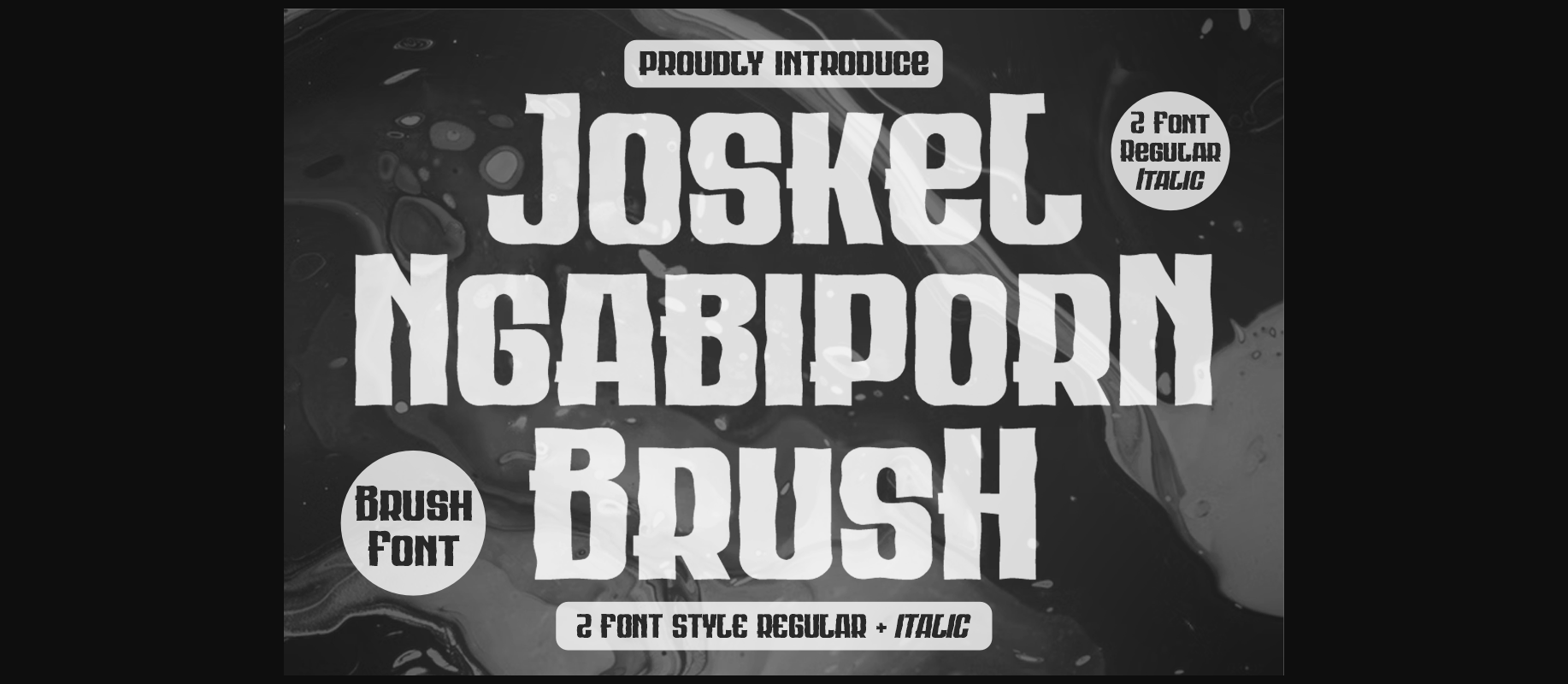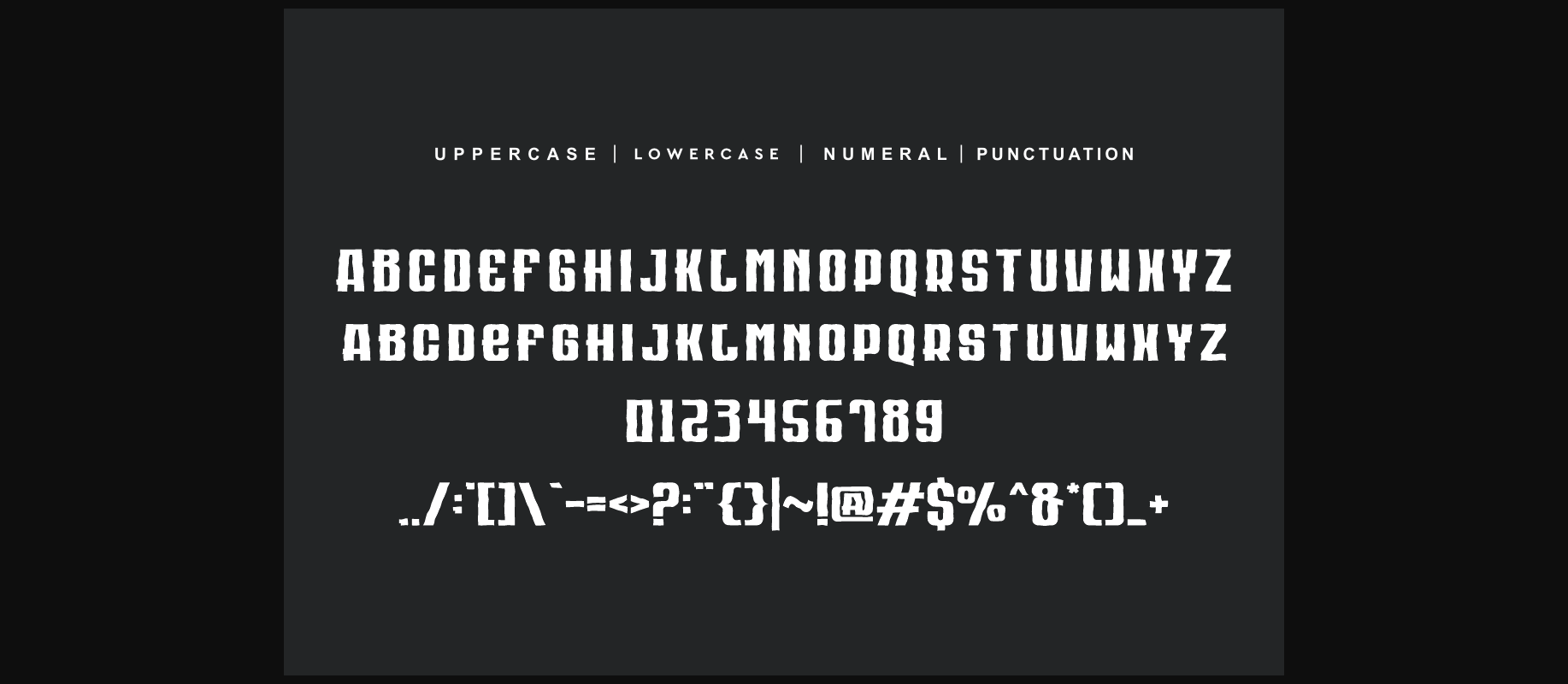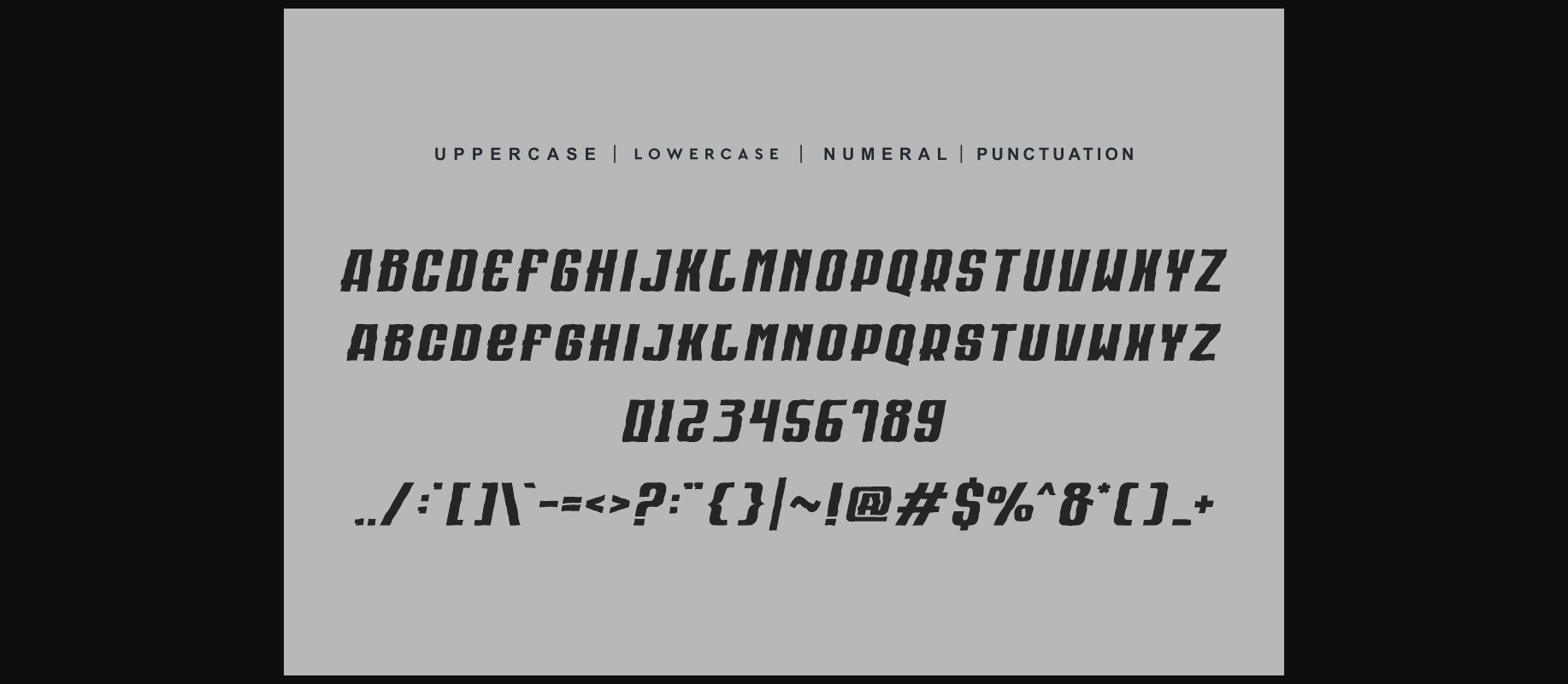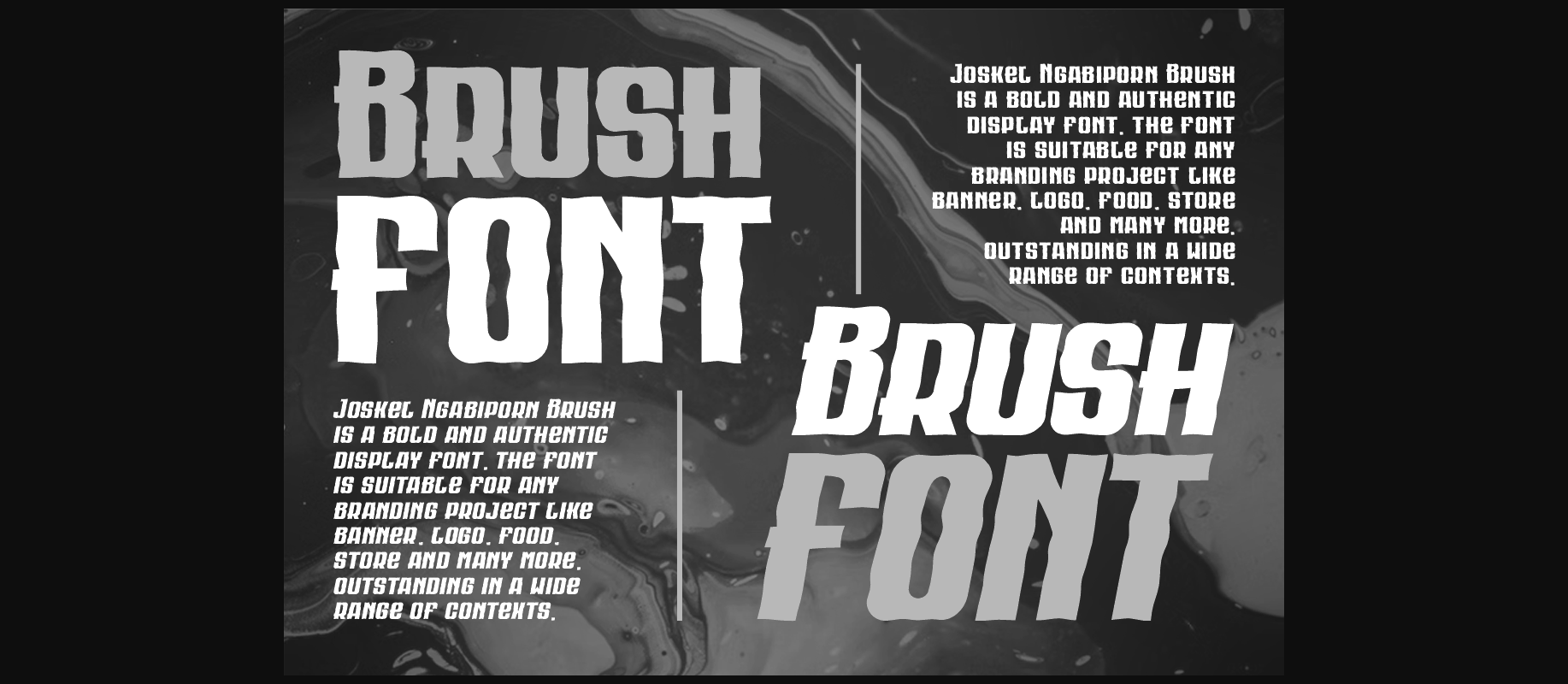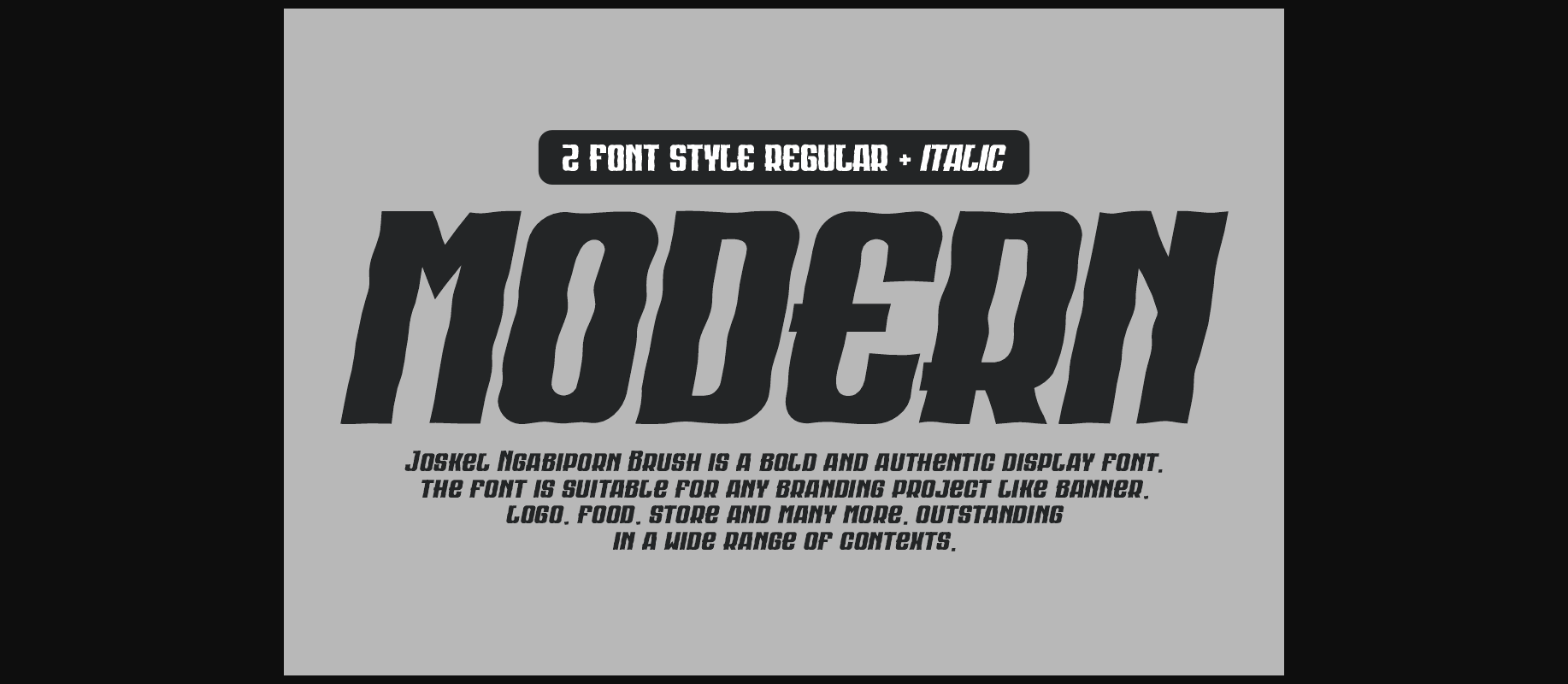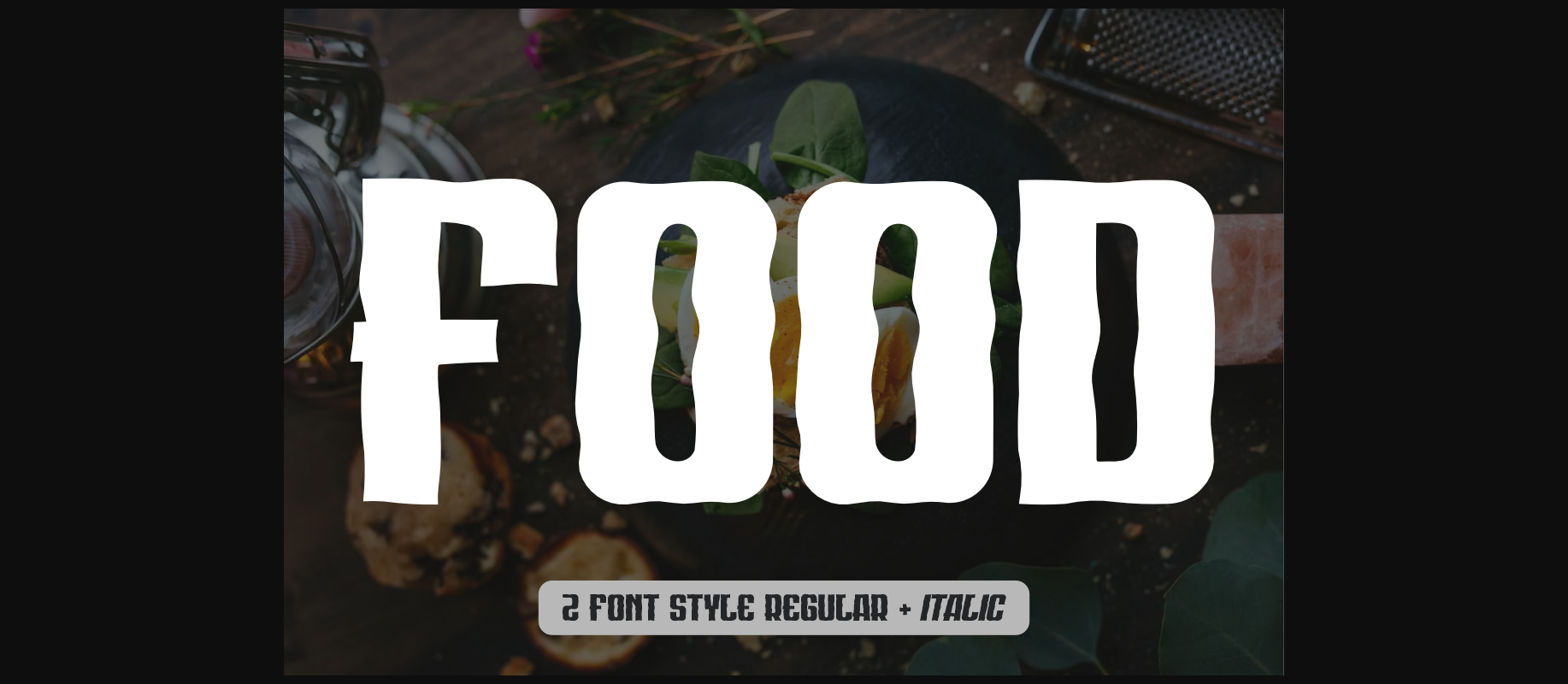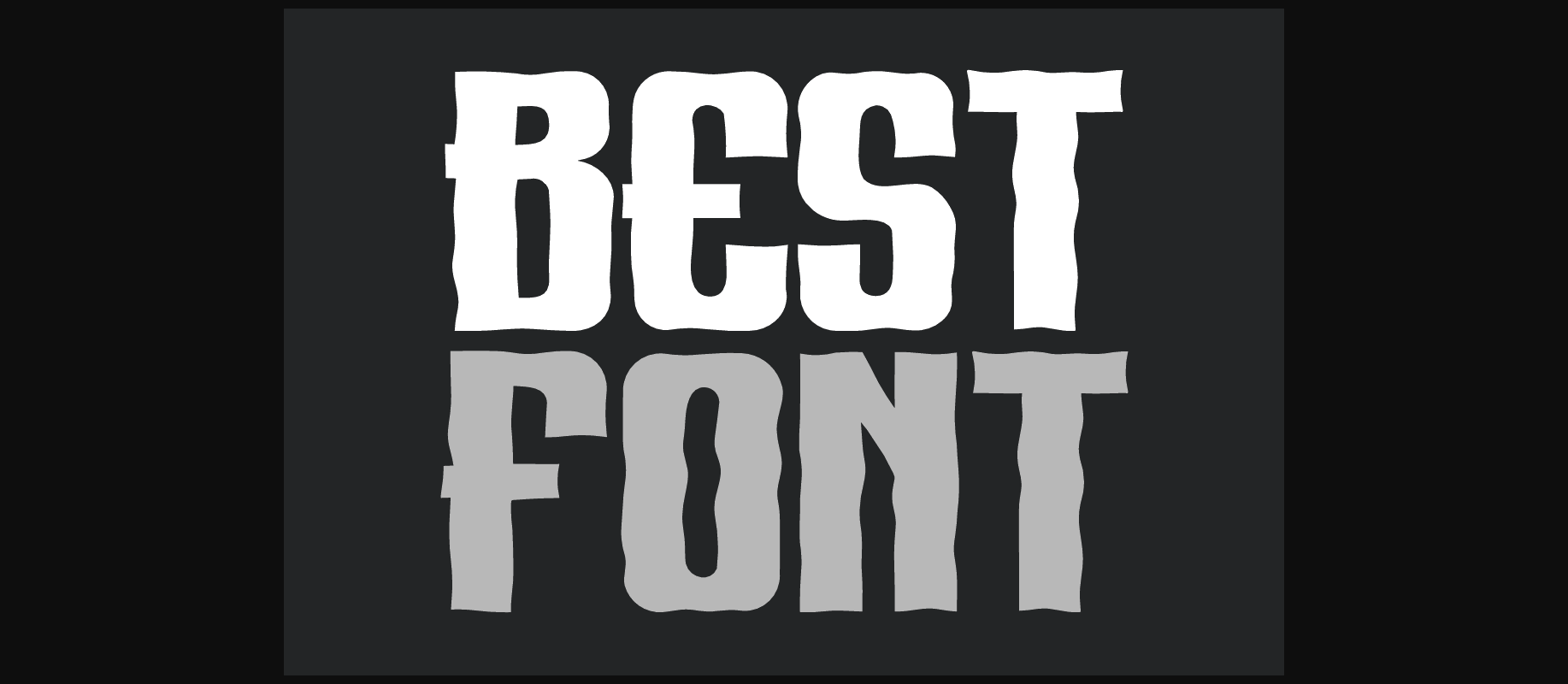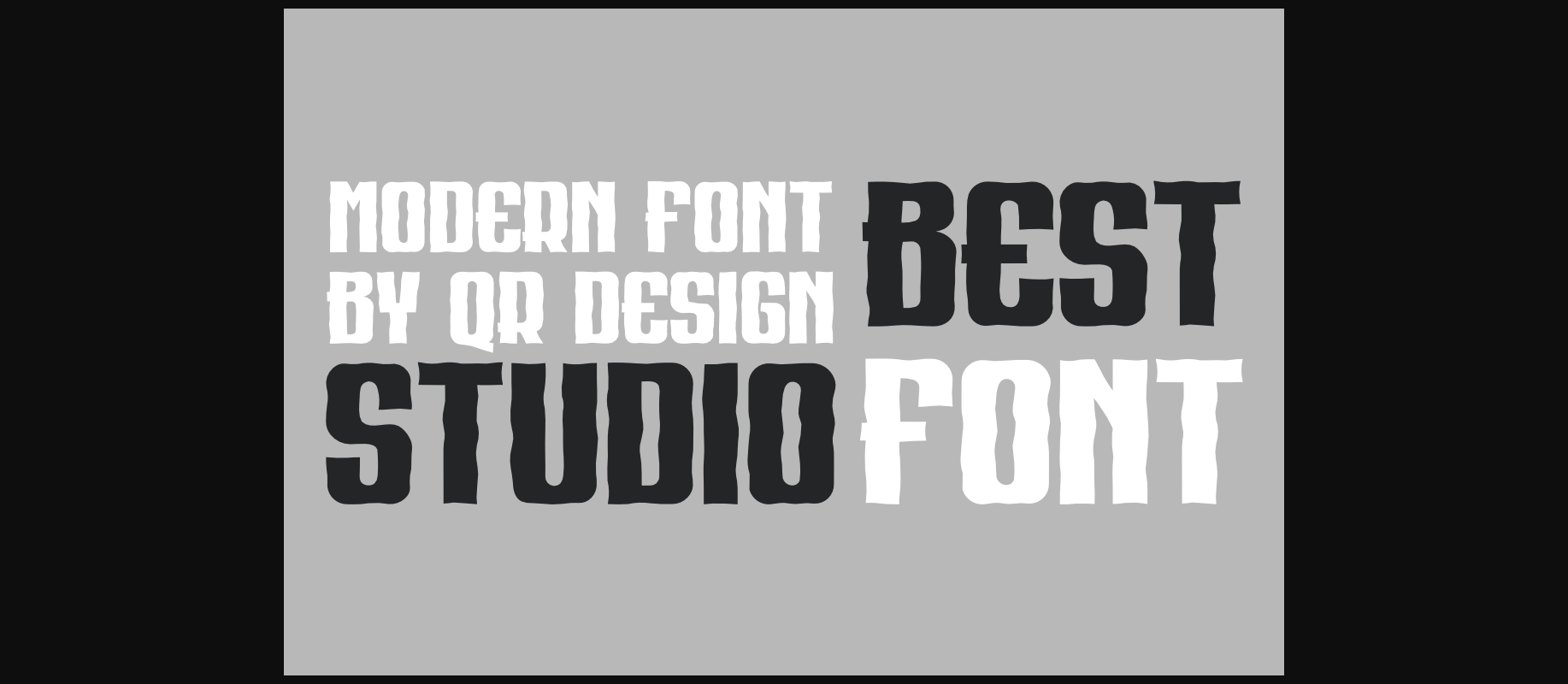
About Joskel Ngabiporn Brush Font
Joskel Ngabiporn Brush Regular + Italic Font is a bold and authentic display font.
The font is suitable for any branding project like logo, food, and many more.